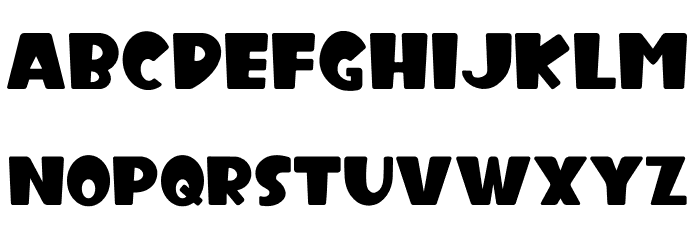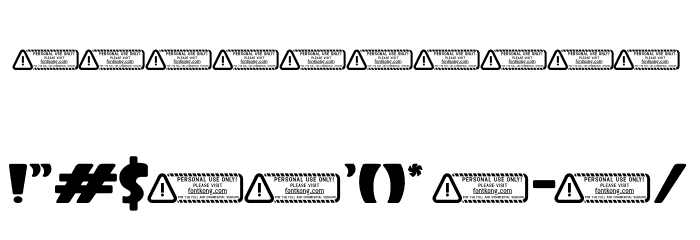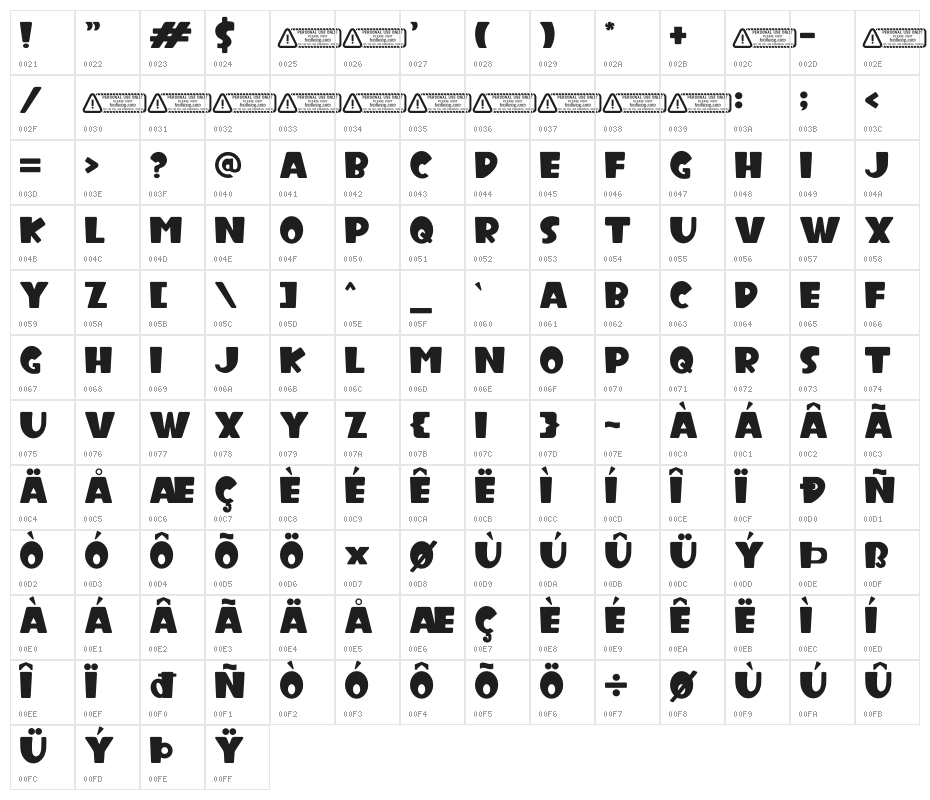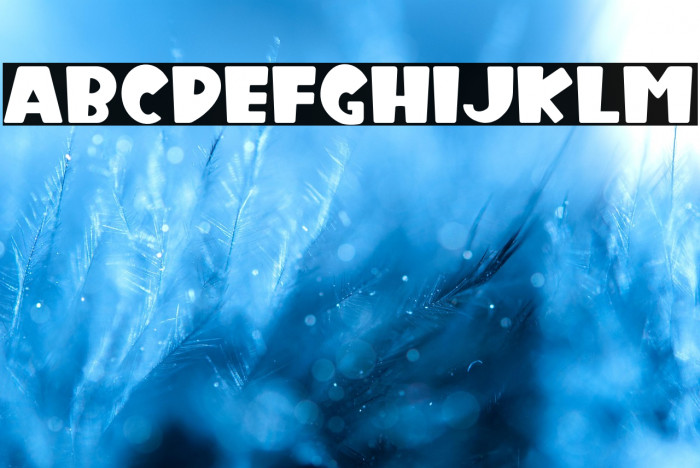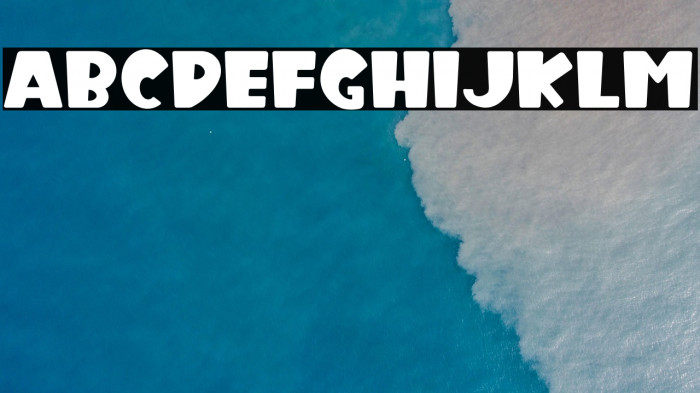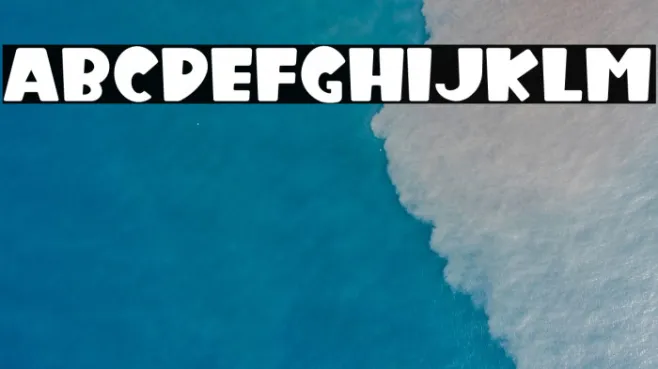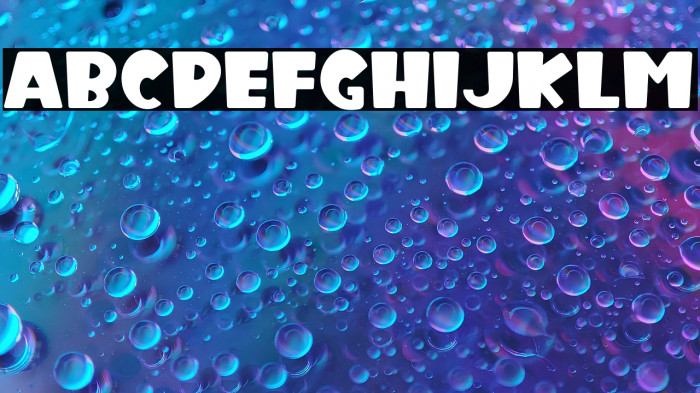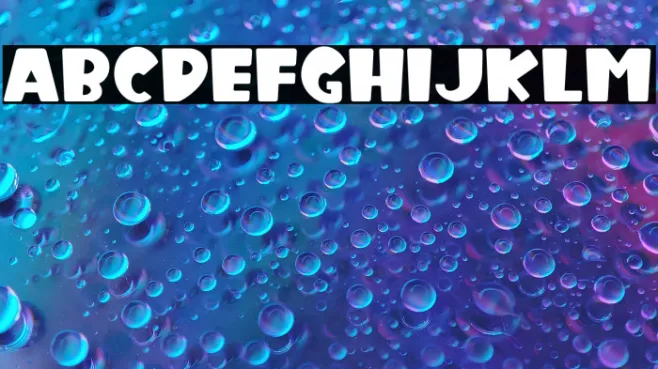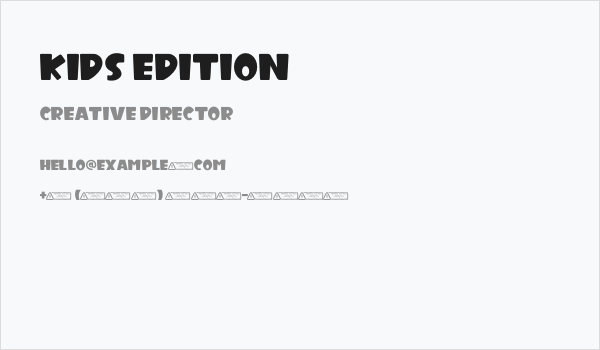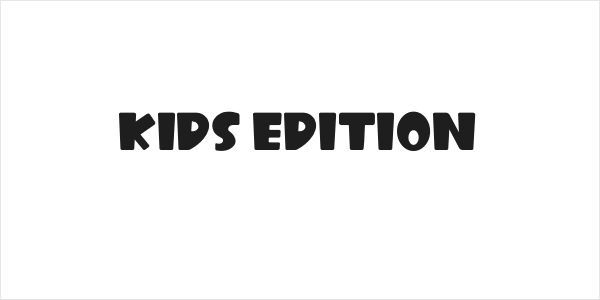
Kids Edition Font
This playful and bold typeface features thick, rounded letters that convey a sense of fun and creativity. The uppercase letters are uniform in height, with a slightly whimsical touch that makes them ideal for children's projects. The font's boldness ensures readability, while its rounded edges soften the overall appearance, making it approachable and friendly. The special characters maintain the same playful style, adding versatility for various design needs. This font is perfect for capturing attention in a lighthearted and engaging manner.
A playful, bold typeface with rounded edges, ideal for children's projects.
- Font: Kids Edition
- Proposed Projects: Perfect for children's books, educational materials, toy packaging, and playful branding.
- Overall Style: Playful
- Use Case: Headlines, Logos, Children's materials